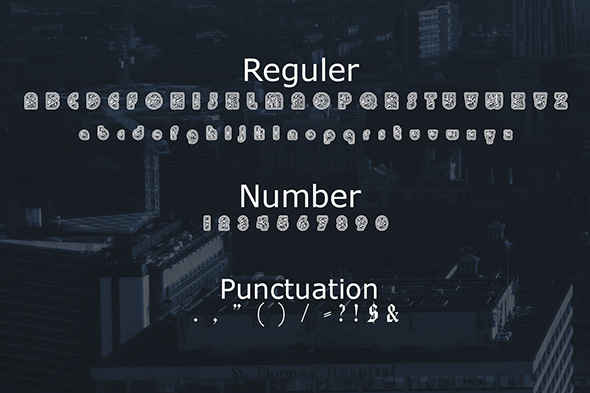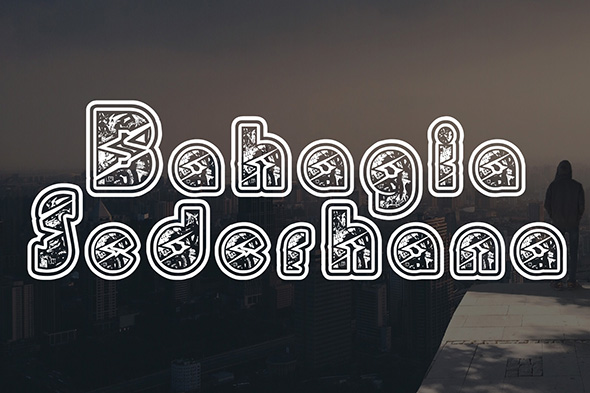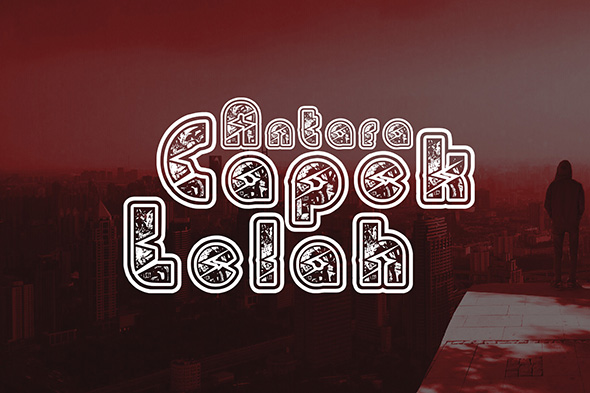
BabehMoe Font: The Creative Expression You Never Knew You Needed
In the world of digital design, fonts play a crucial role in conveying messages, evoking emotions, and adding personality to creative projects. For designers, crafters, and DIY enthusiasts, finding the perfect font can be a daunting task. However, if you’re looking for a unique and expressive font to elevate your designs, look no further than the BabehMoe font by Gblack Id.
What is BabehMoe Font?
BabehMoe is a distinctive font created by Gblack Id, a talented font designer known for crafting unique and stylish typography. This font is designed to add a touch of playfulness, whimsy, and creativity to any design project. With its bold and curly lines, BabehMoe font is perfect for designs that require a dash of personality and flair.
Key Features of BabehMoe Font
- Unique and Quirky Design: BabehMoe font boasts a one-of-a-kind design that sets it apart from other fonts. Its curly lines and bold strokes make it perfect for adding a touch of whimsy to your designs.
- Highly Versatile: This font is suitable for a wide range of design projects, including logos, branding, packaging, posters, and more.
- Easy to Read: Despite its curly design, BabehMoe font is surprisingly easy to read, making it perfect for body text and headings.
Who Can Benefit from BabehMoe Font?
BabehMoe font is perfect for:
- Graphic Designers: Add a touch of personality to your designs and stand out from the crowd.
- Crafters and DIY Enthusiasts: Create unique and eye-catching projects, such as handmade cards, scrapbook pages, and craft tutorials.
- Small Business Owners: Establish a strong brand identity with a distinctive font that reflects your brand’s personality.
Tips and Tricks for Getting the Most out of BabehMoe Font
- Experiment with Font Sizes: BabehMoe font looks great in various font sizes, from small captions to large headings.
- Play with Color: Try pairing BabehMoe font with bold and bright colors to create a striking contrast.
- Mix and Match with Other Fonts: Combine BabehMoe font with other fonts to create a unique and visually appealing typography.
| Font Name | BabehMoe Font |
| Author | Gblack Id |